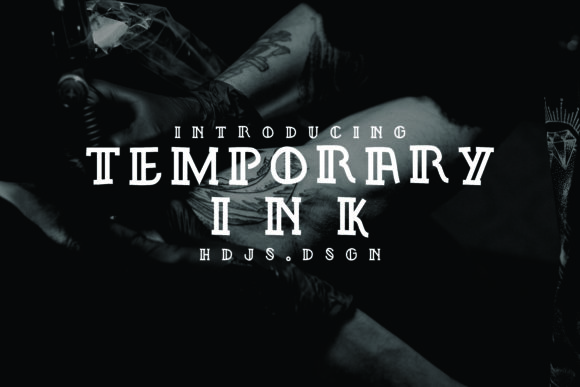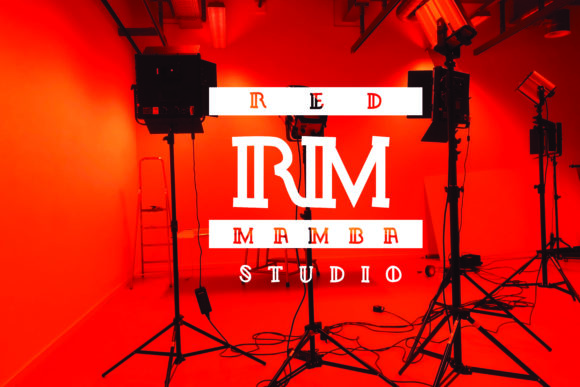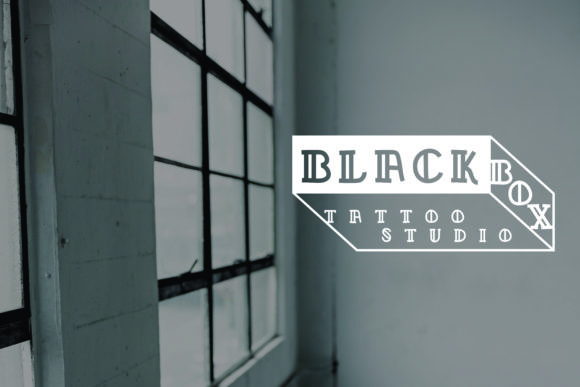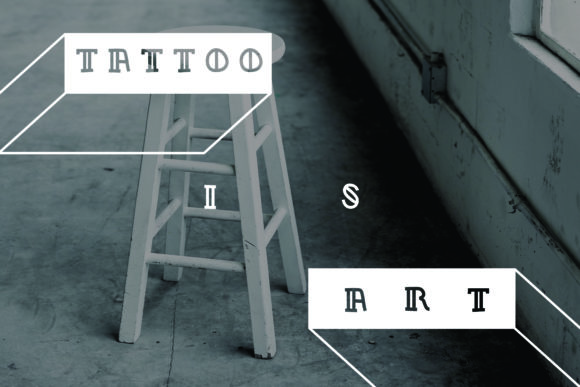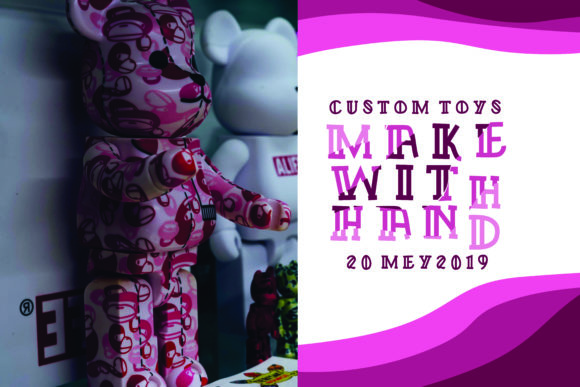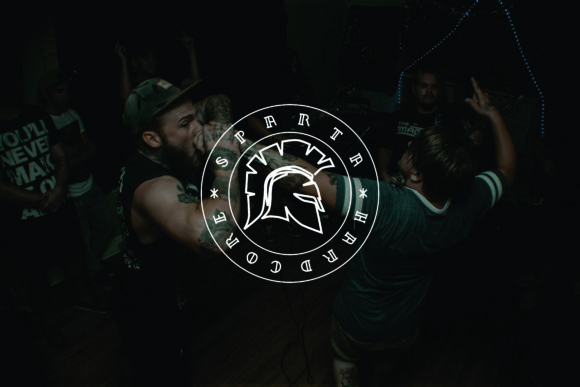
Temporary Ink Font
About Temporary Ink Font
The Temporary Ink is an unique script font. It includes uppercase letters which were inspired by tattoos.
It’s suitable for logos, branding, layouts, posters, and every other design which needs an unique look.